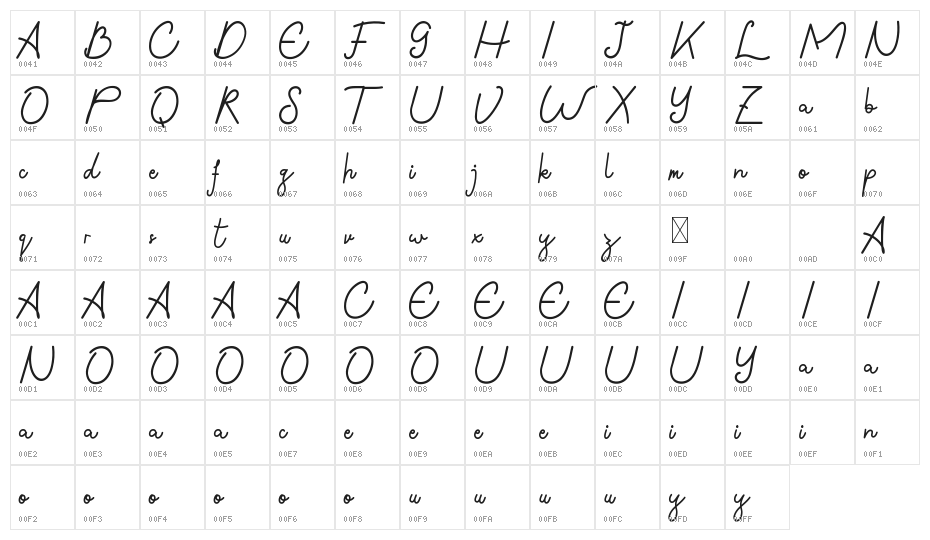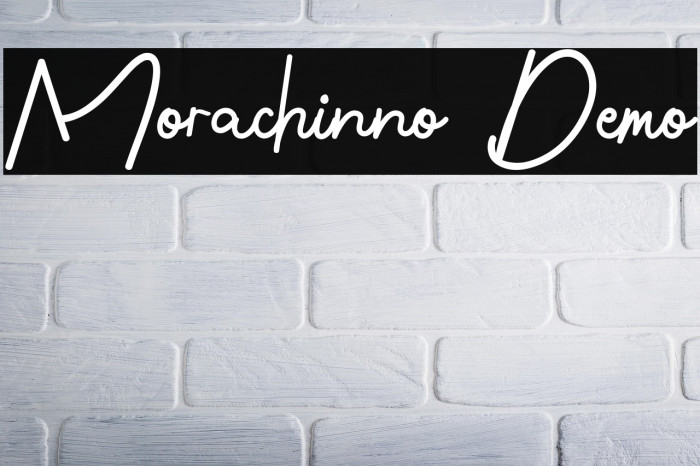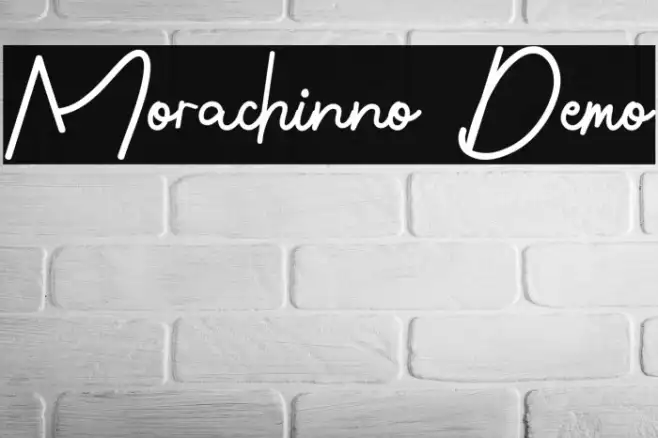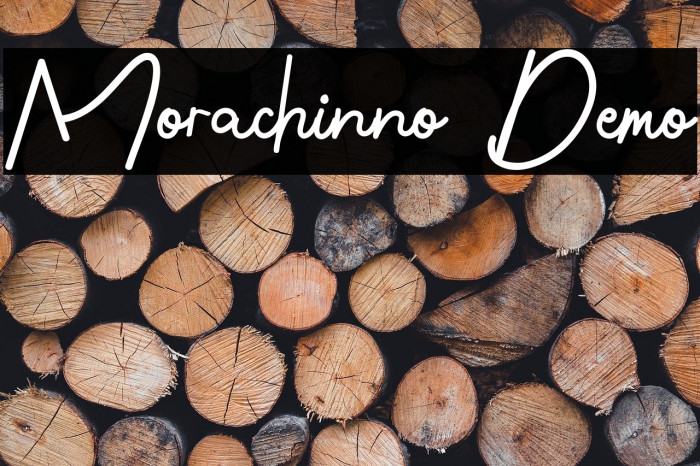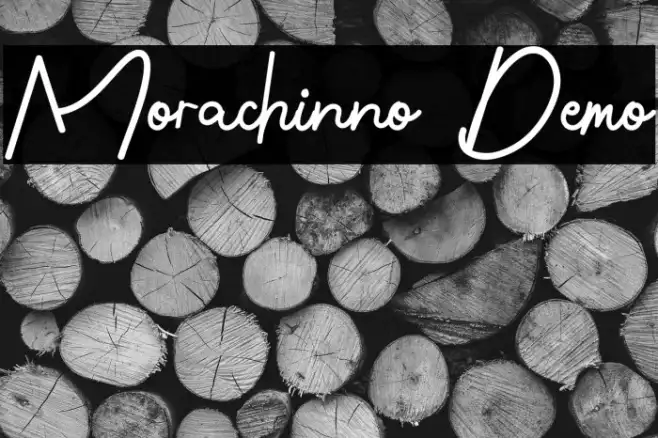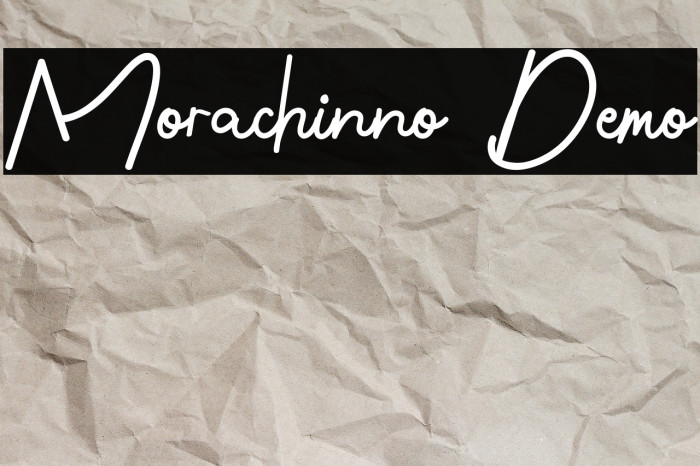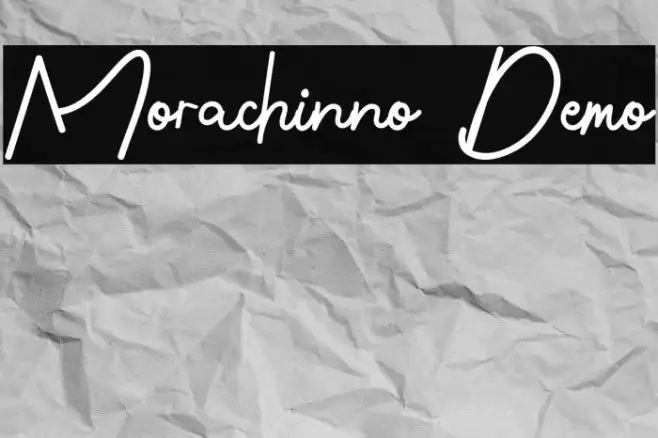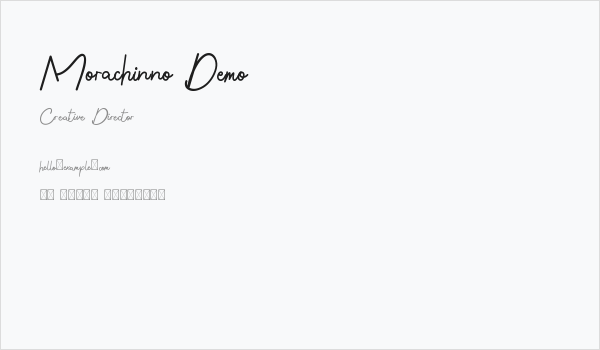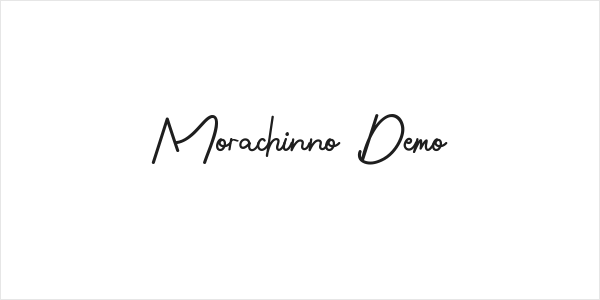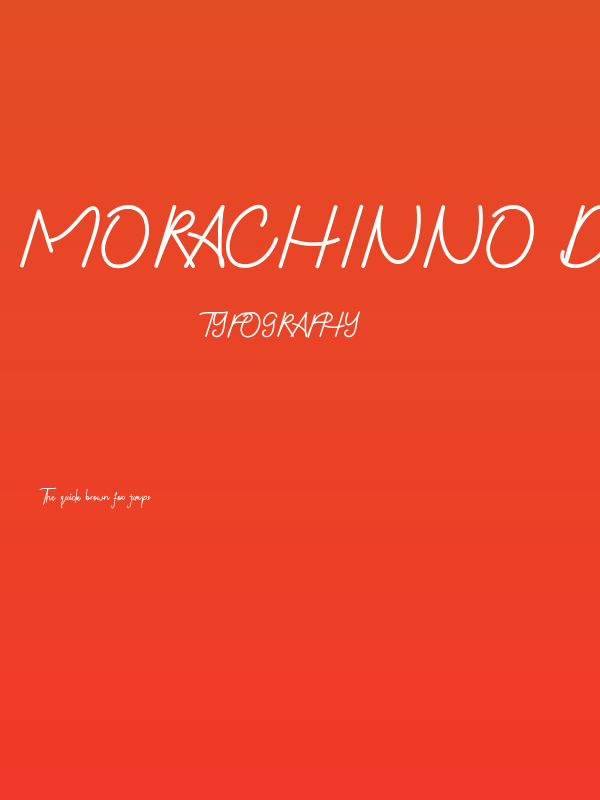
Morachinno Demo Font
Morachinno Demo Description
This font features a flowing, cursive style that mimics elegant handwriting. The uppercase letters are tall and slender, with a slight slant that adds a sense of motion and grace. The lowercase letters are more compact, maintaining the same fluidity and connectedness that is characteristic of cursive writing. The strokes are consistent in width, providing a uniform appearance across all characters. The font includes a full set of uppercase and lowercase letters, numerals, and a selection of special characters, making it versatile for various design needs. Its handwritten style is both sophisticated and approachable, suitable for projects that require a personal touch.
| Overall Style | Elegant, Handwritten |
| Use Case | Logos, Invitations, Personal Branding |
| Proposed Projects | Ideal for wedding invitations, greeting cards, personal branding, and any project that benefits from a personal, elegant touch. |